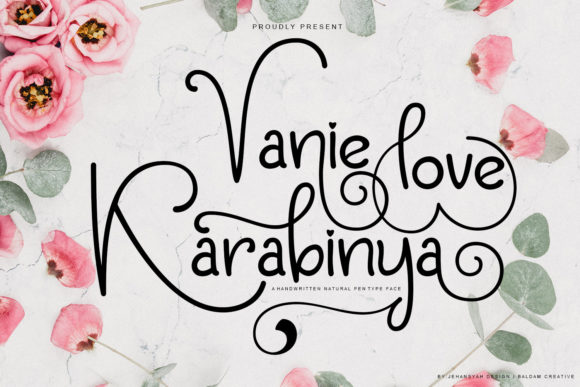
Embrace the allure of Vanie Karabinya Love, a calligraphic wonder that captivates with its intricate artistry and timeless elegance. This script font, meticulously crafted by jehansyah251, is a testament to the enduring beauty of handwritten artistry. As a PUA encoded font, Vanie Karabinya Love grants you the freedom to effortlessly access its entire repertoire of characters, including an array of graceful swashes that lend an air of playfulness and charm to your designs.
Immerse yourself in the world of comics, where Vanie Karabinya Love truly shines. Its meticulously crafted strokes evoke the nostalgic charm of classic comic lettering, adding a touch of whimsy and adventure to your creations. Whether you're crafting captivating stories, designing eye-catching posters, or creating unique logos, Vanie Karabinya Love is the ultimate font for injecting personality and dynamism into your work.
Step into a realm where imagination and creativity intertwine, where the written word takes on a life of its own. Vanie Karabinya Love's vintage allure and contemporary flair make it the perfect choice for those seeking to make a lasting impression. Its versatility extends beyond comics, lending its distinctive charm to invitations, greeting cards, and branding projects. Each character is a work of art, a testament to the artistry and dedication that went into its creation.